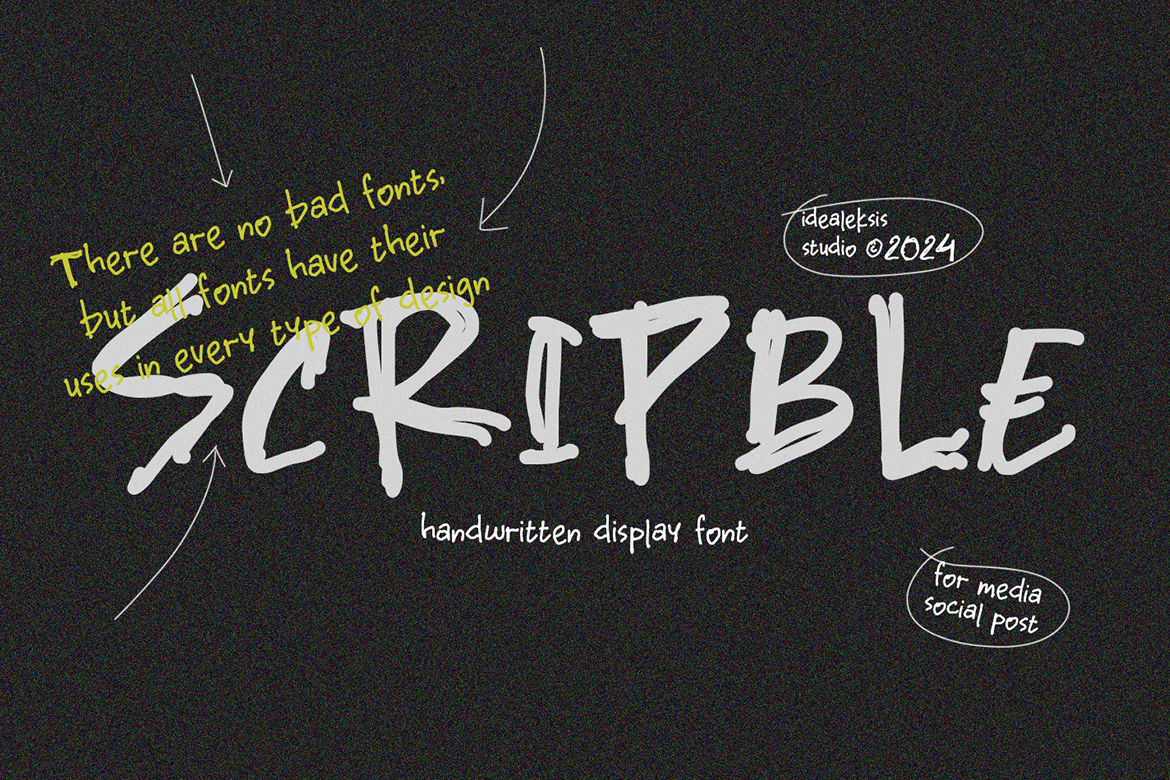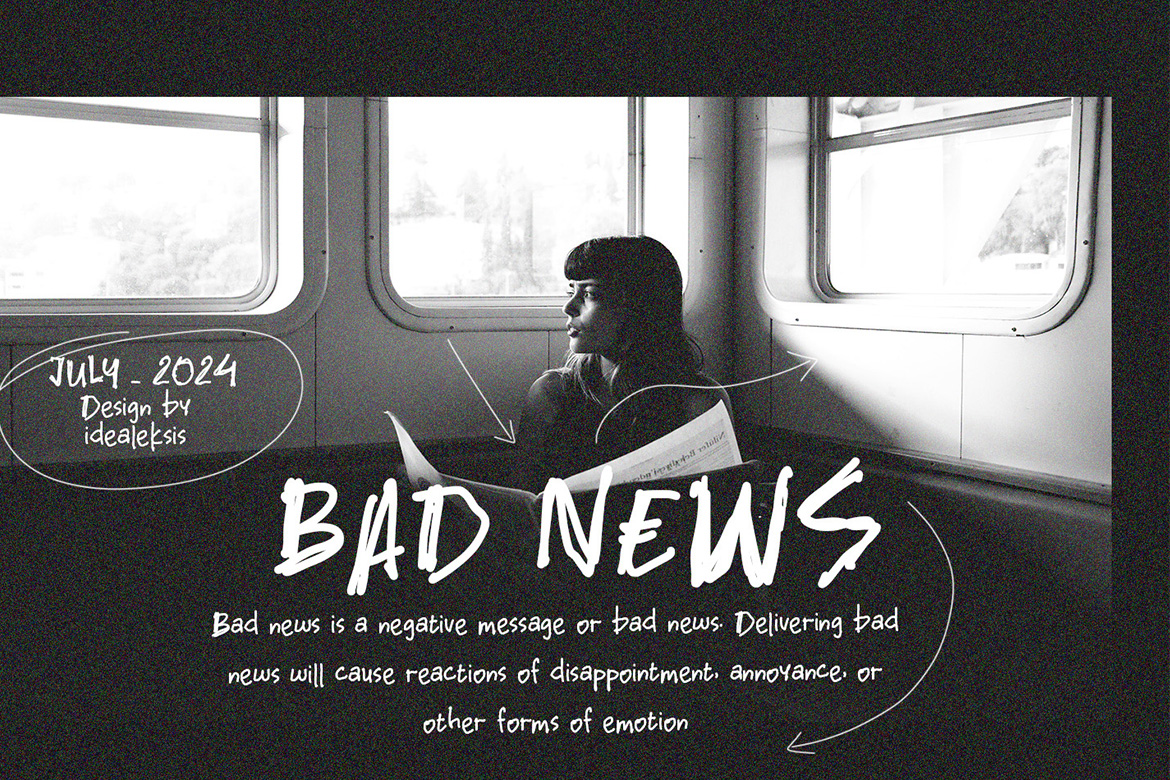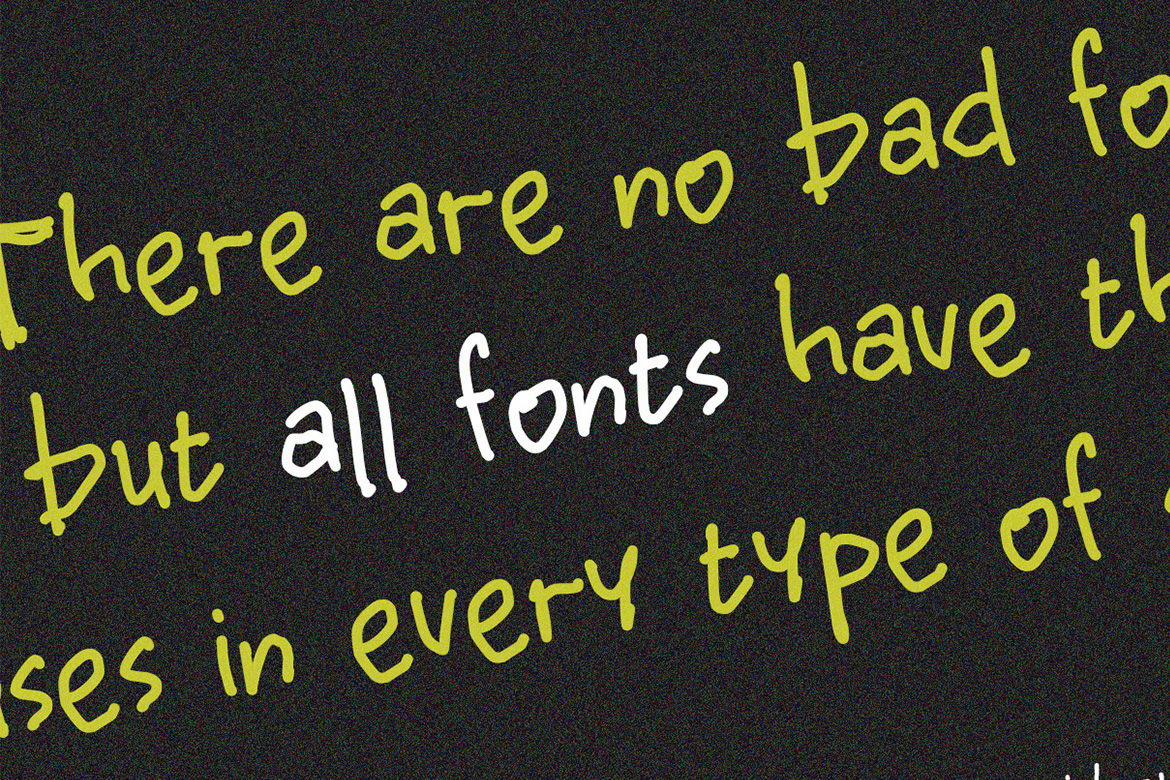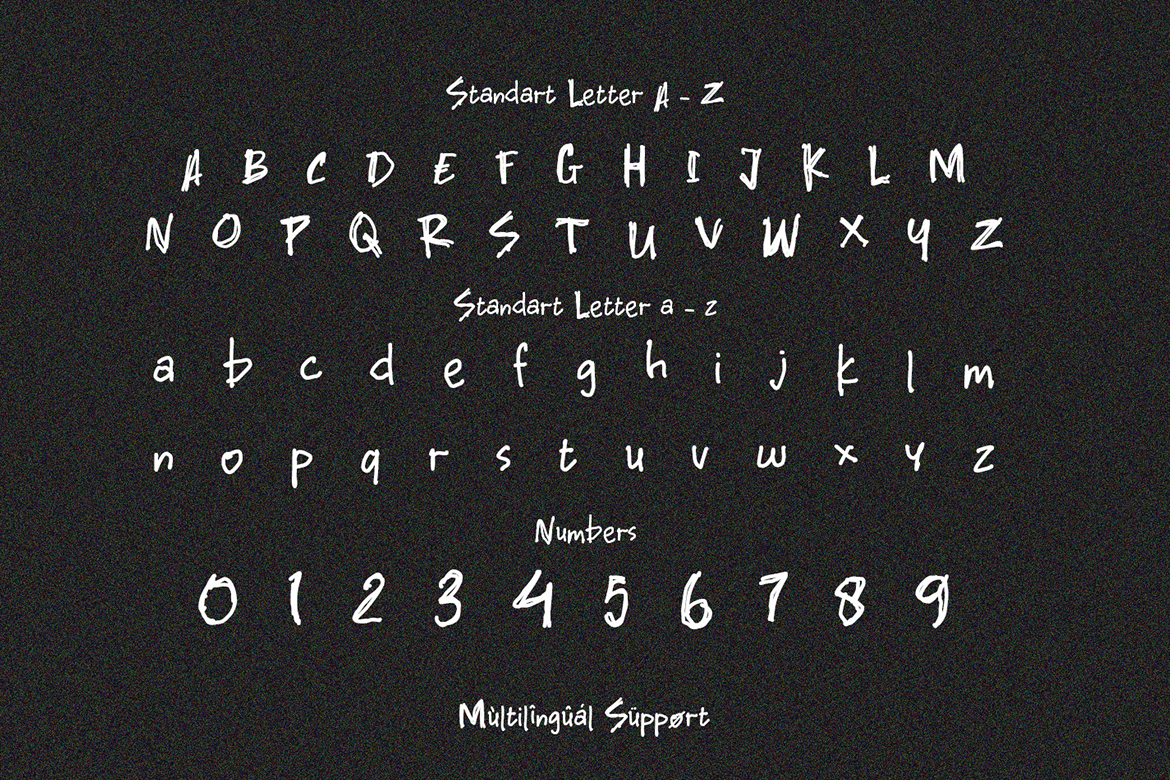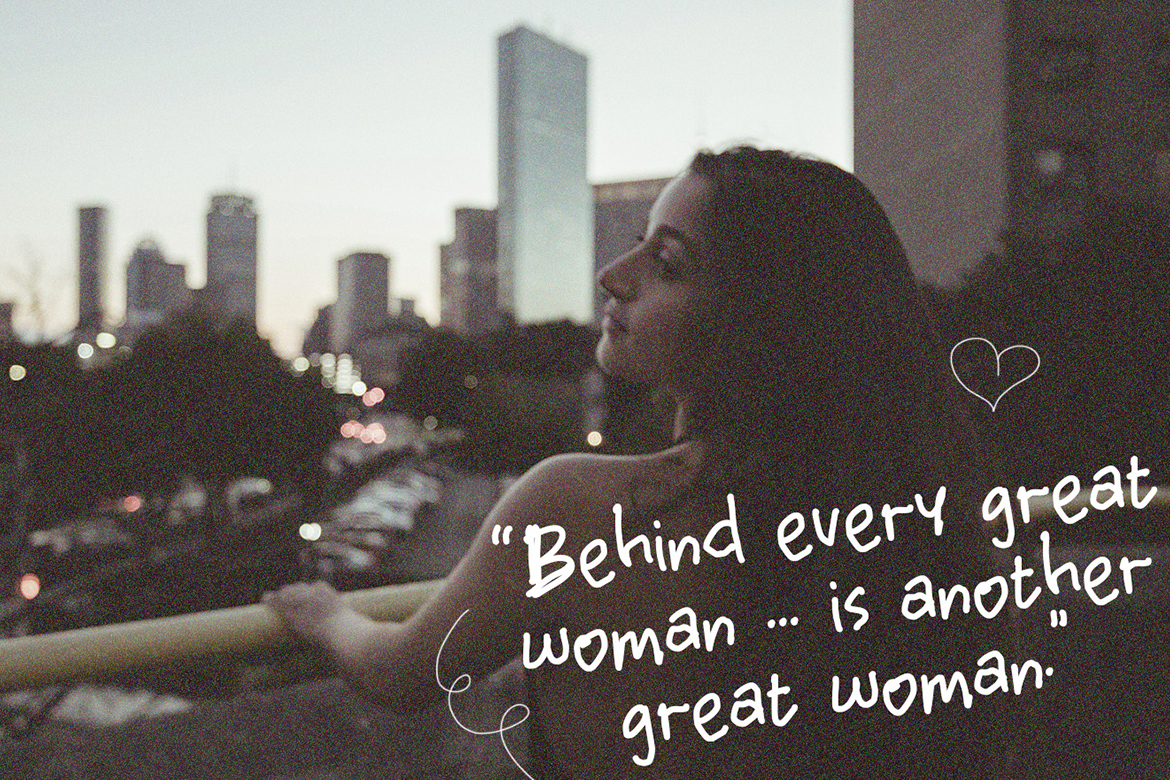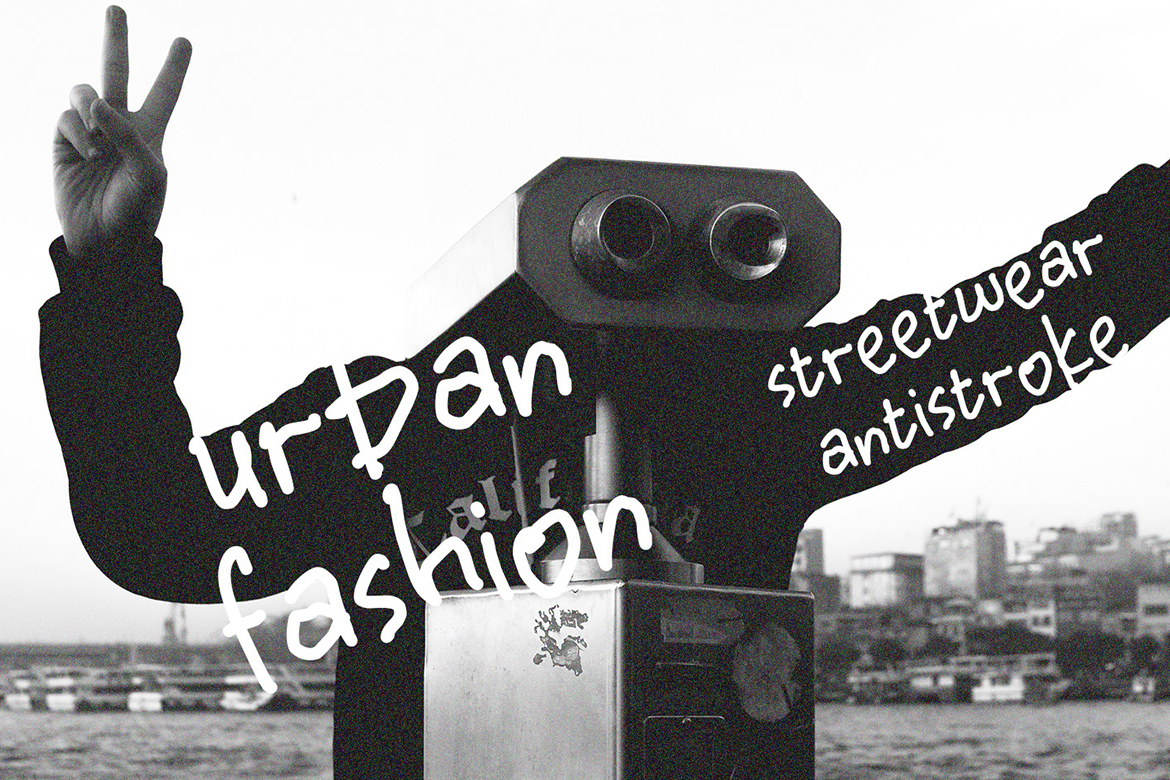
Scripble
Scripble Font is a charming and authentic handwritten typeface that captures the essence of natural strokes. Its genuine, hand-drawn appearance brings a personal touch to any design project. Perfect for adding a warm and inviting feel to invitations, greeting cards, and creative branding, Scripble Font stands out with its unique and organic look. Embrace the beauty of imperfections with this delightful font that adds character and authenticity to your text. In Package : OTF TTF WOFF WOFF2 Feature : Uppercase Lowercase Numerals Punctuation Easy To Install